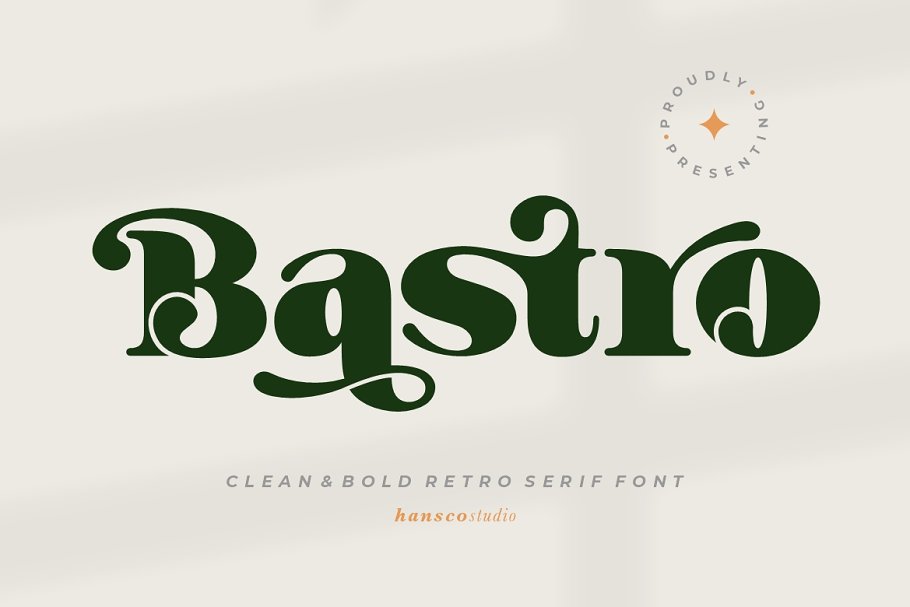
Looking for the perfect font to add a touch of retro style to your design? Look no further than Bastro - Retro Bold Fonts! Created by burhan afif, this bold retro serif font family is the ideal choice for those looking to add a modern retro aesthetic to their work.
Bastro is a versatile and eye-catching font that feels both casual and clean. With its multilingual support, uppercase and lowercase letters, and access to alternates, numbers and punctuation, this font has everything you need to make your design stand out.